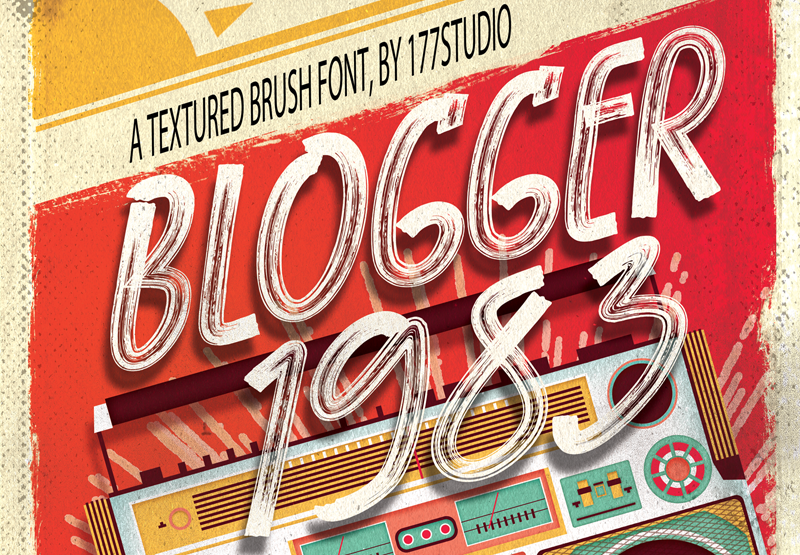
BLOGGER 1983 BRUSH FONT is a supercharged brush font style, street-wise brush font bursting with energy. With extra attention to quick strokes and sharp details. This font is very suitable for a variety of places such as clothing, poster, tittle books, stationery designs, quotes, branding, logos, invitations, greeting cards, t-shirts, packaging designs and more. You can buy full license from our store for more our fonts: https://gumroad.com/l/KfOzX if you have any problem, let we know by email: admin@177studio.com |